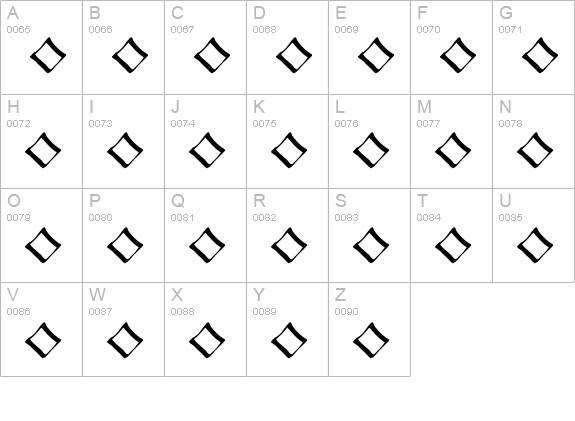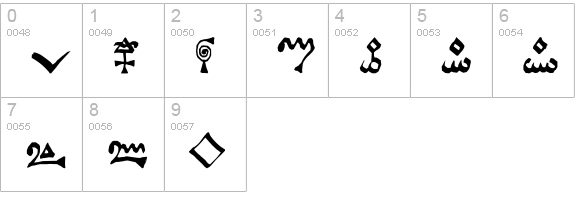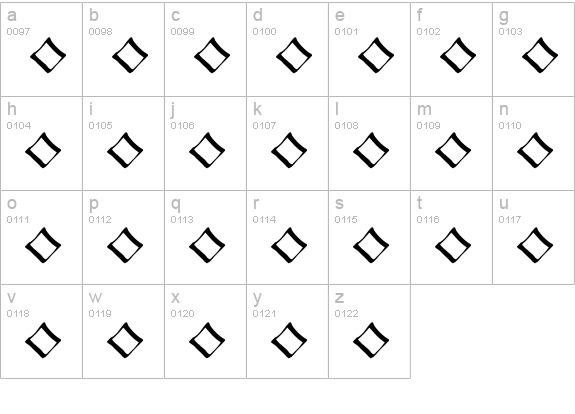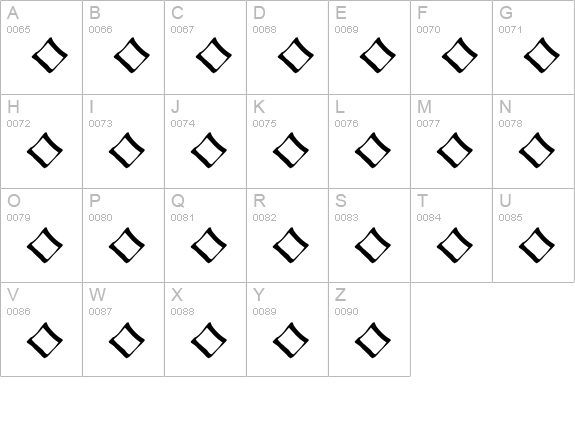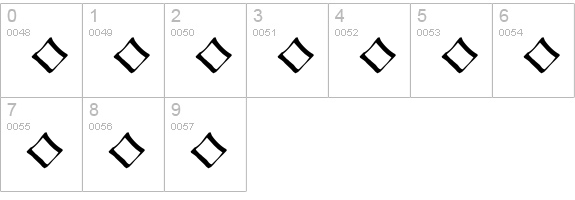
Alchimistische Symbole Font Details
Alchimistische Symbole font is a captivating and mysterious typeface inspired by alchemical symbols and esoteric mysticism. Its intricate and ornate design exudes an aura of ancient wisdom and hidden knowledge. The symbols in this font are meticulously crafted, each carrying its own unique meaning and significance. With Alchimistische Symbole font, you can add a touch of magic and mystique to your projects, whether you're working on branding, packaging, or creative designs. The font's intricate details and mystical charm make it a versatile choice for those seeking to convey a sense of mystery and intrigue. Best of all, Alchimistische Symbole font is available for free download at FontsMarket.com. Now you can unlock the secrets of this enchanting typeface and incorporate its mystical symbols into your work with ease. Embrace the allure of the unknown and let Alchimistische Symbole font inspire your next creative endeavor.